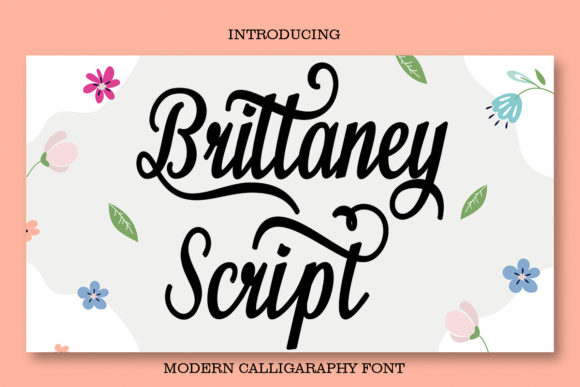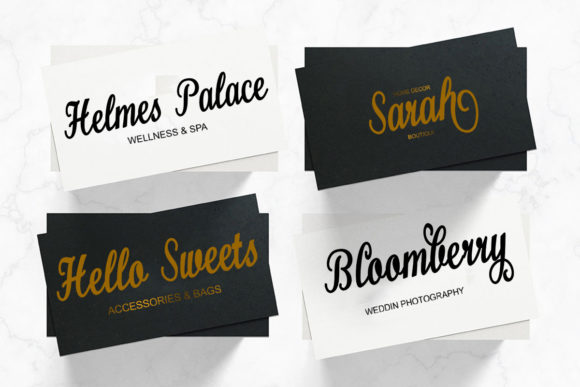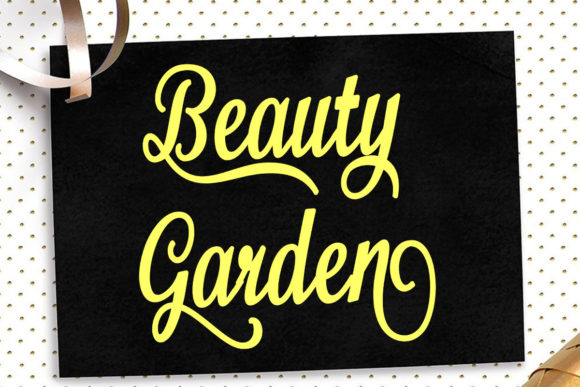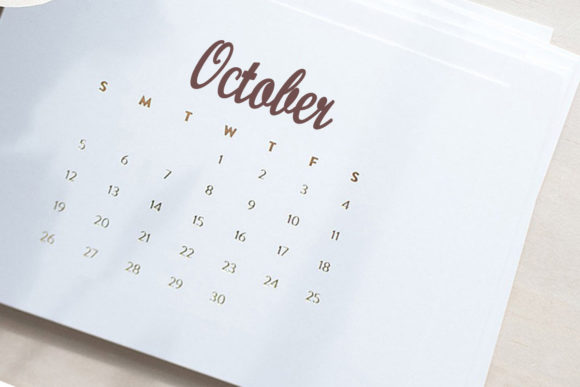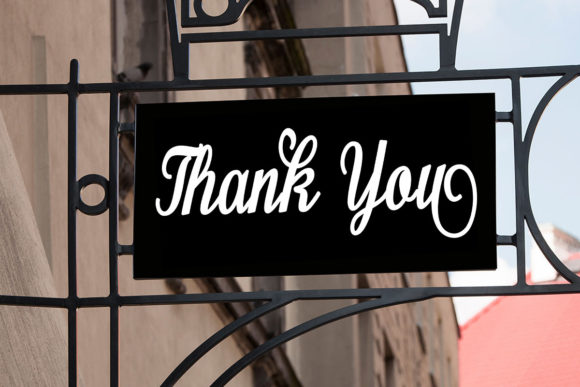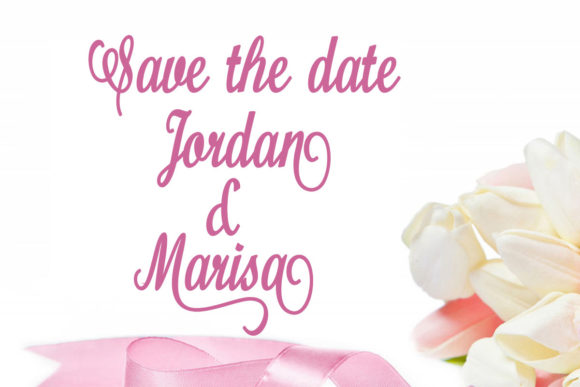
Brittaney Script Font
About Brittaney Script Font
“Brittaney Script” is a sweet and cursive handwritten font that has been thoughtfully designed to achieve exceptional results. Its cursive style exudes a sense of charm and grace, making it an ideal choice for infusing elegance and class into your design projects.
The font’s delicate cursive strokes lend a touch of sophistication to your creations. Its ability to seamlessly blend with a wide range of design concepts ensures its versatility, making it suitable for various projects where an air of refinement is desired.
Additionally, the font’s PUA encoding provides you with easy access to a diverse range of glyphs and swashes. This feature enhances your creative freedom, allowing you to personalize and customize your designs to your heart’s content.
As you delve into the capabilities of “Brittaney Script,” you’ll appreciate its potential to elevate your projects. Its sweet and cursive handwritten style adds a layer of authenticity and elegance, making it a valuable asset for creating visuals that resonate with viewers.
In essence, “Brittaney Script” goes beyond being just a font—it’s a tool that empowers you to create remarkable designs with an element of sweetness and class. Its cursive elegance and PUA encoding ensure that your creations capture attention and leave a lasting impression. With “Brittaney Script,” your creative possibilities expand, and your projects become expressions of style and refinement that resonate with your audience.